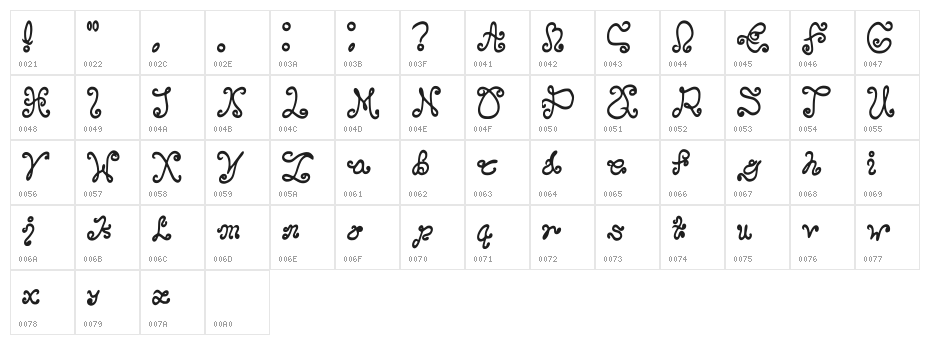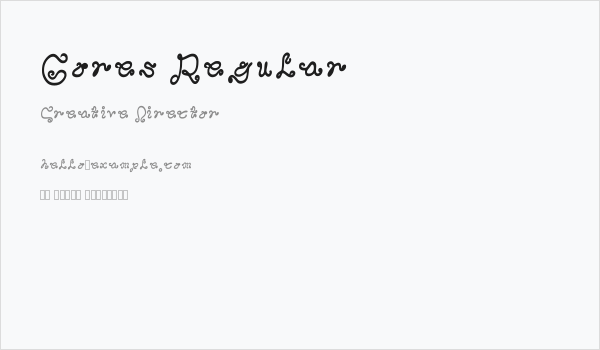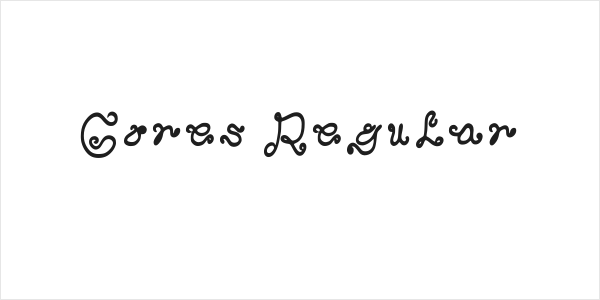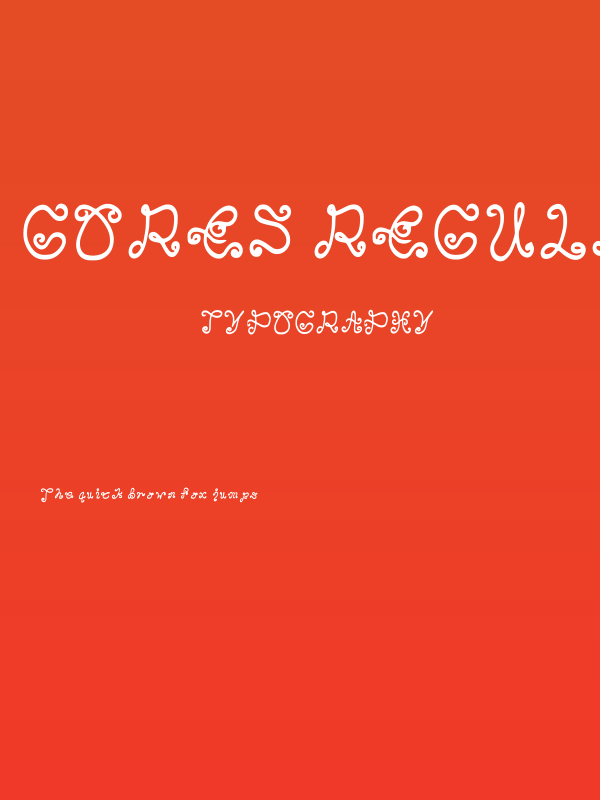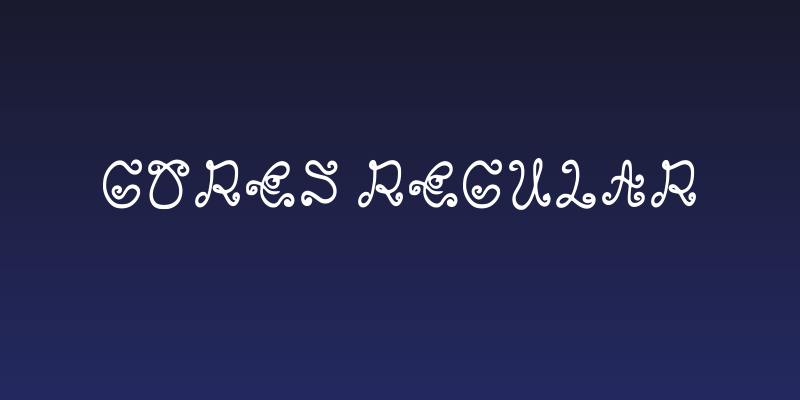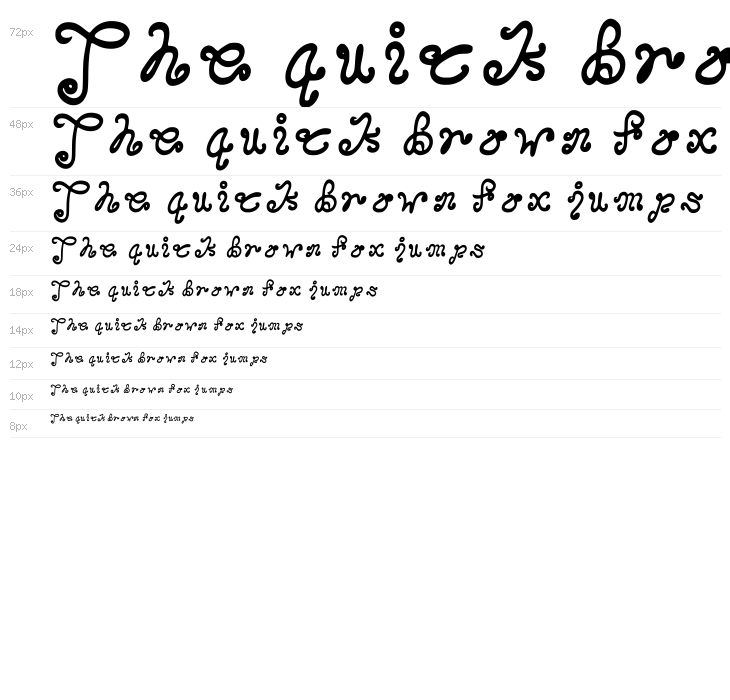
Gores Regular Font
Gores Regular Description
This font features a highly decorative and whimsical style, characterized by its intricate swirls and loops that embellish each letter. The uppercase and lowercase letters maintain a consistent ornamental theme, with each character displaying unique flourishes that add to its playful and artistic appearance. The numbers and special characters follow the same elaborate design, making the font suitable for creative and expressive projects. The overall look is bold and eye-catching, with a medium contrast in stroke thickness that enhances its decorative appeal.
| Use Case | Headlines, Logos, Artistic projects |
| Proposed Projects | Ideal for invitations, greeting cards, artistic posters, and branding projects that require a playful and unique aesthetic. |